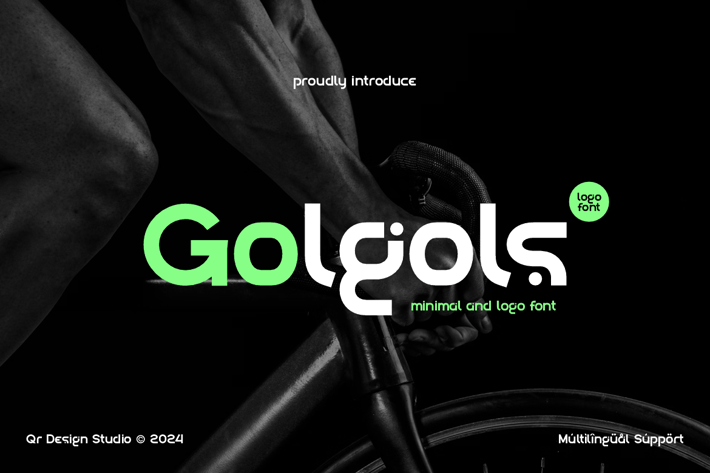
Golgols - Minimal Logo Font
Golgols Font is a sans serif and minimal logo font.
The font is suitable for any branding project like stylish, poster, logo, sport, and many more.
Main Features
+ Uppercase & Lowercase
+ Ligatures & Alternate
+ Numeral & Punctuations
+ Multilingual Support
+ Extended Character Set